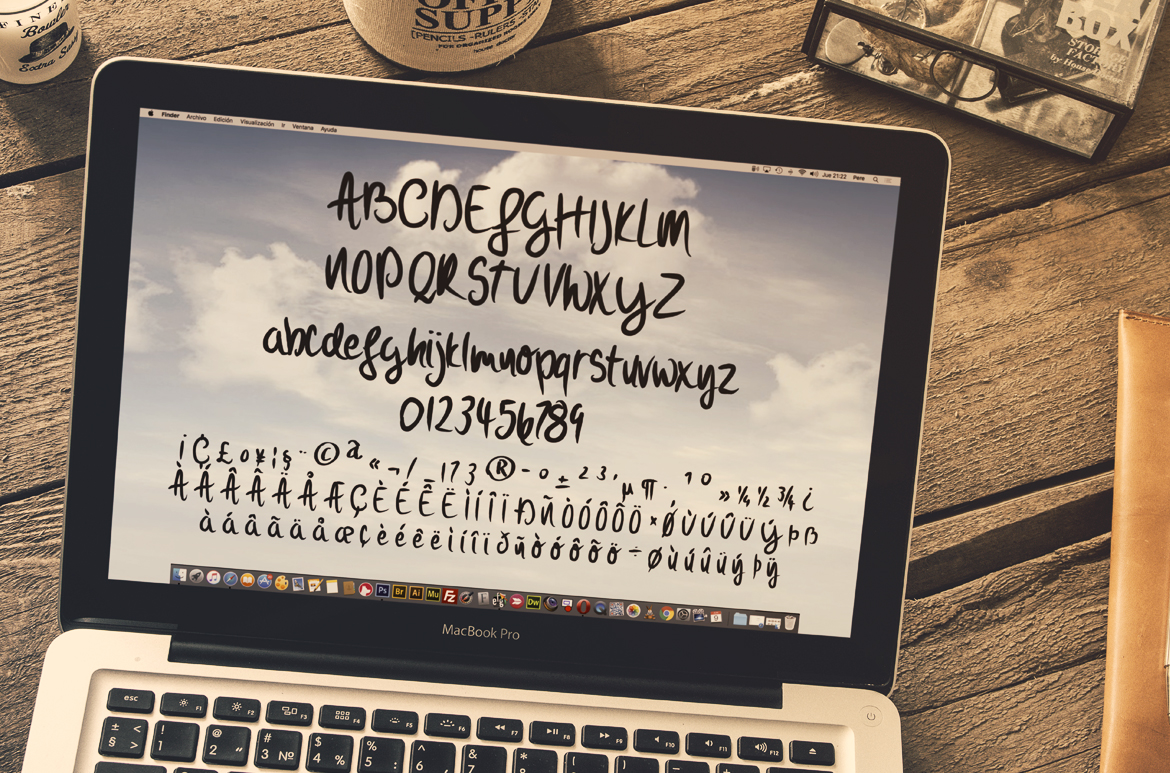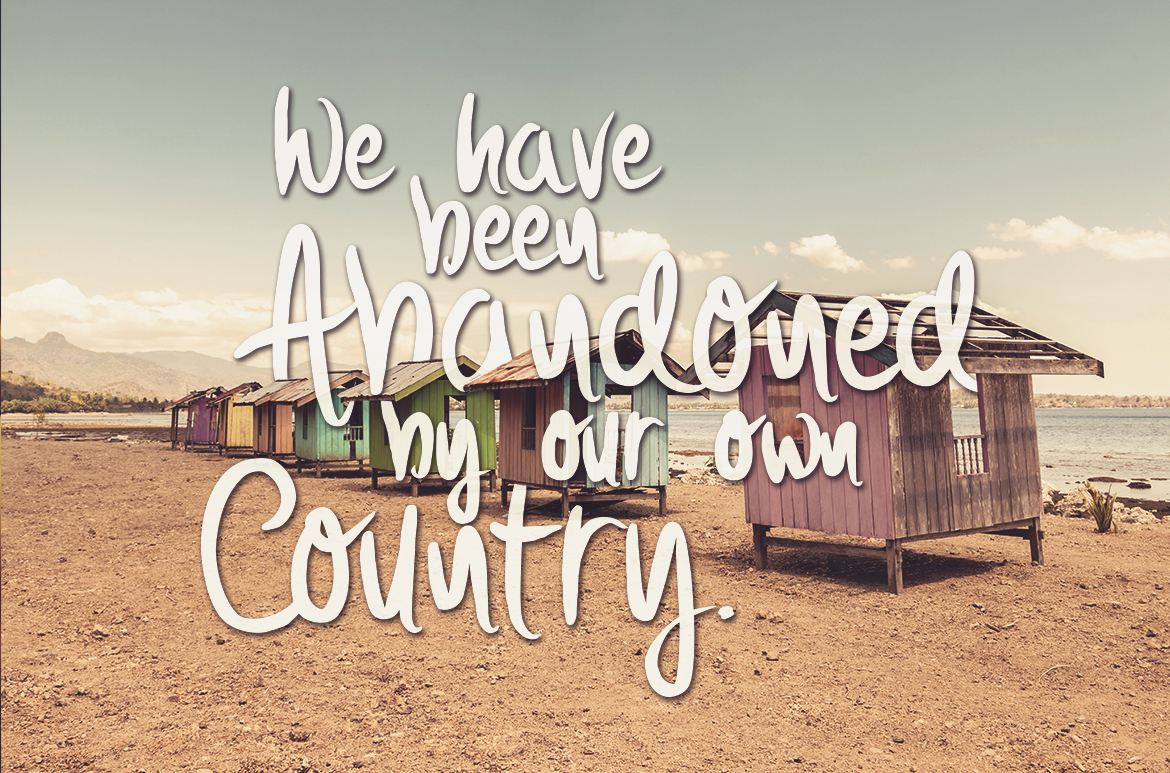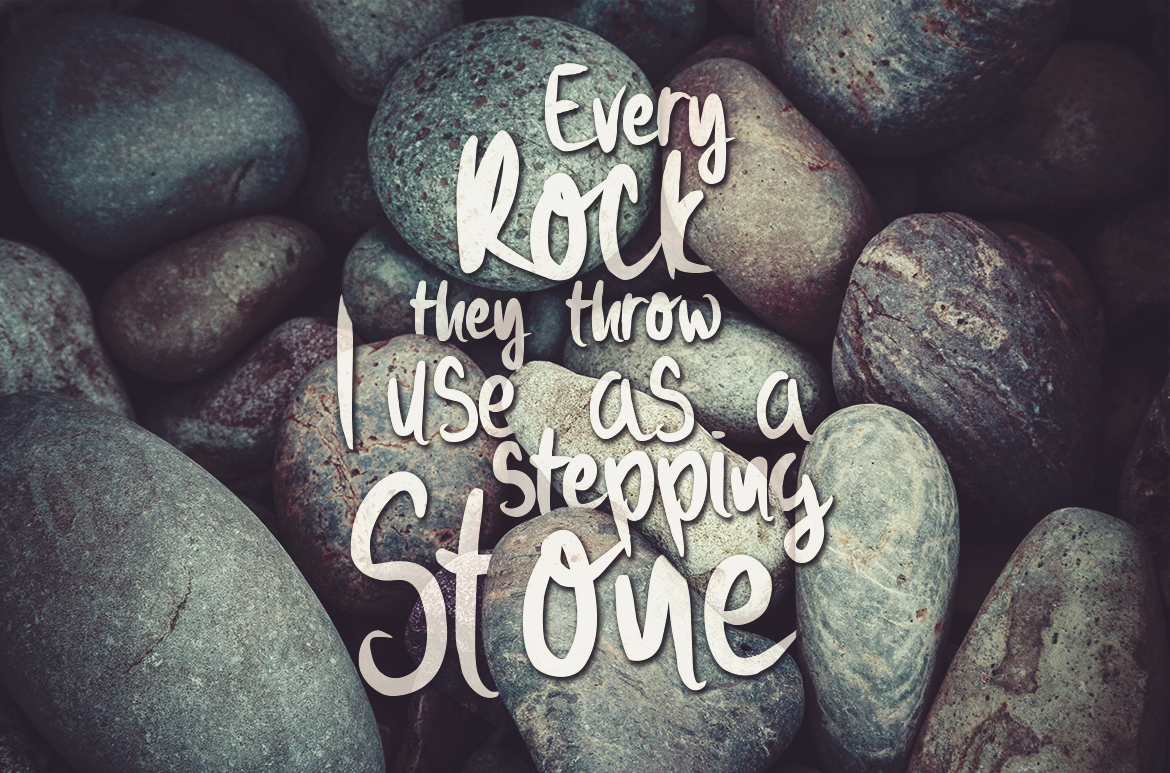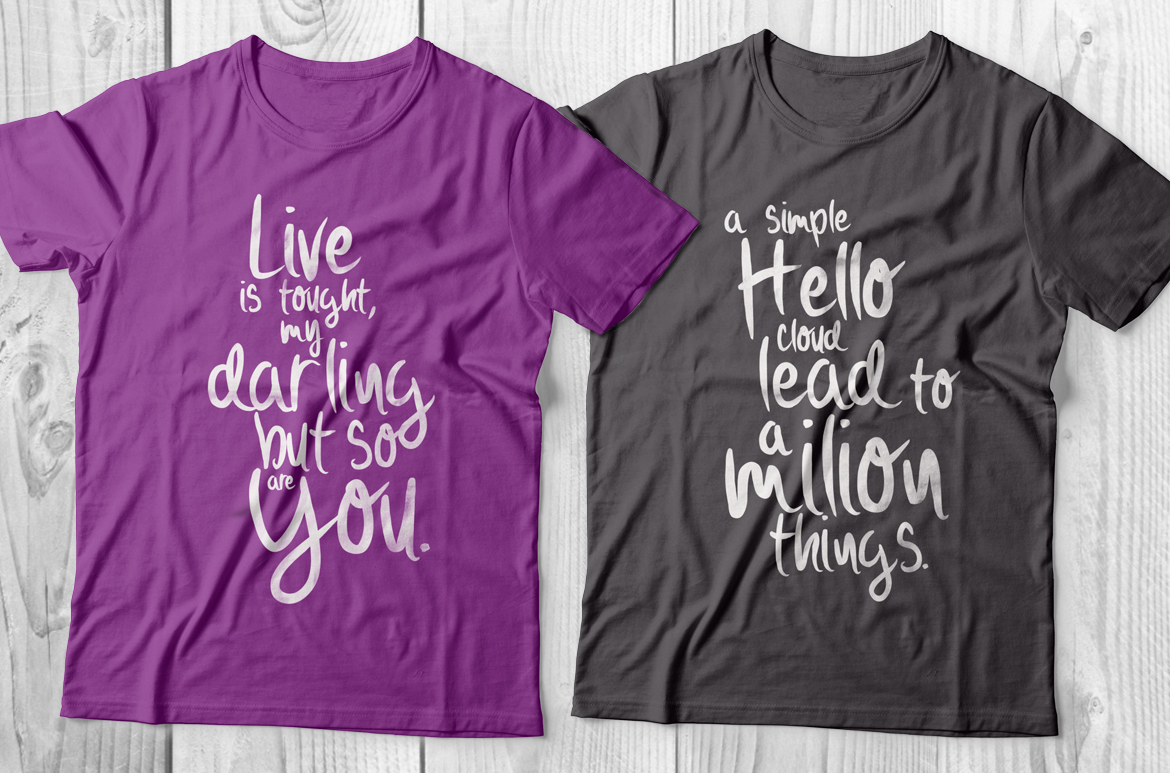
Witold Font
About Witold Font
Withold is handbrushed font with super smooth rounded strokes.
The Withold font comes in 3 beautiful variationst hat word perfect with eachother:
Withold Regular
Withold Bold
Withold Light